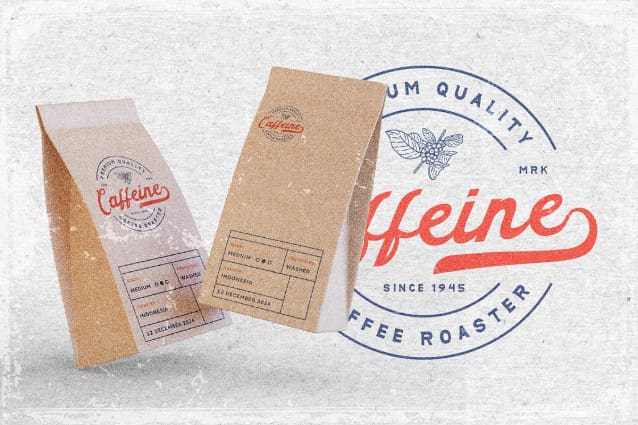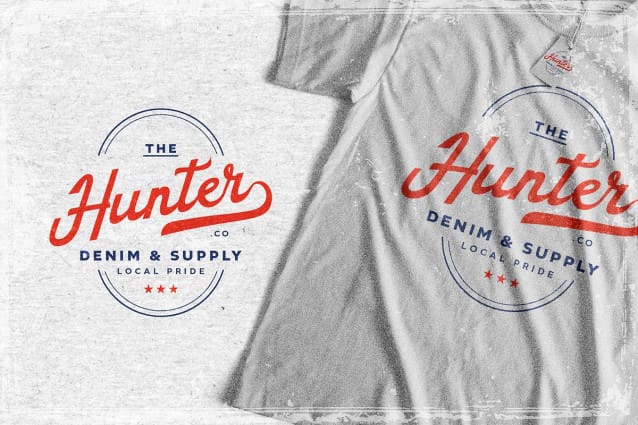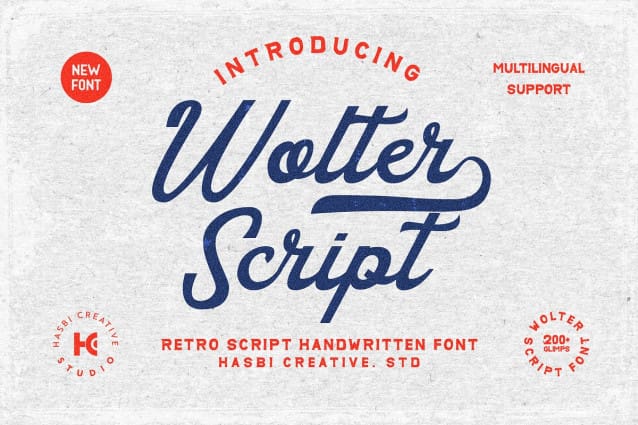
Wolter Script Font
Wolter Script Font – Vintage Script, a monoline script font that is perfect for adding a touch of elegance and sophistication to your designs.
With its smooth lines and delicate curves, Wolter – Vintage Script Monoline is perfect for logos, branding, wedding invitations, social media posts, and more.